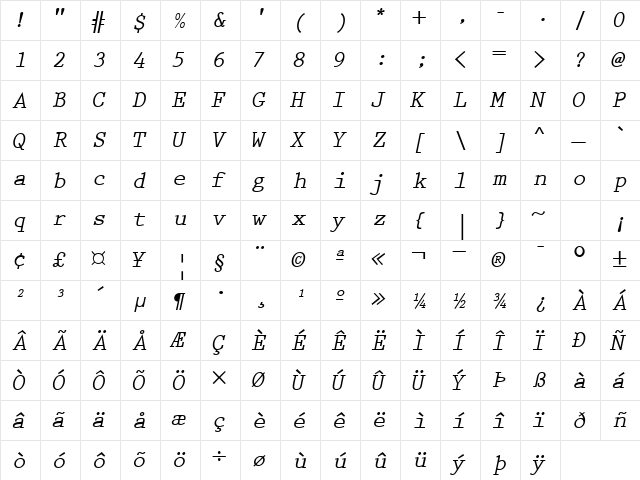
KeyboardEliteSSK BoldItalic Font Preview
KeyboardEliteSSK BoldItalic
Design Context for KeyboardEliteSSK Typeface
KeyboardEliteSSK is a composed and adaptable typeface that performs quietly and consistently across a wide range of design contexts. The slanted form adds forward momentum and visual energy. The heavy weight commands attention and anchors typographic hierarchies.